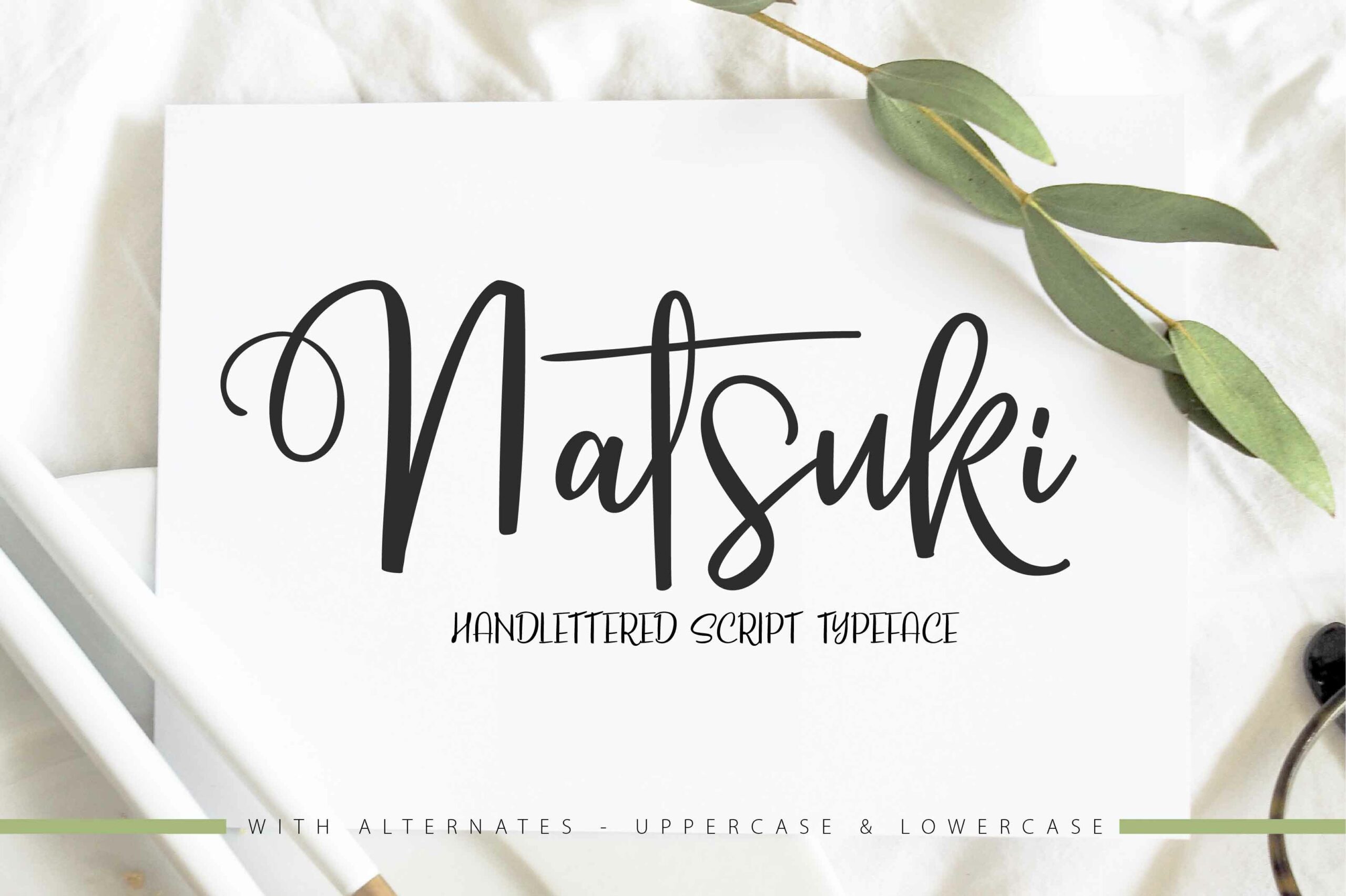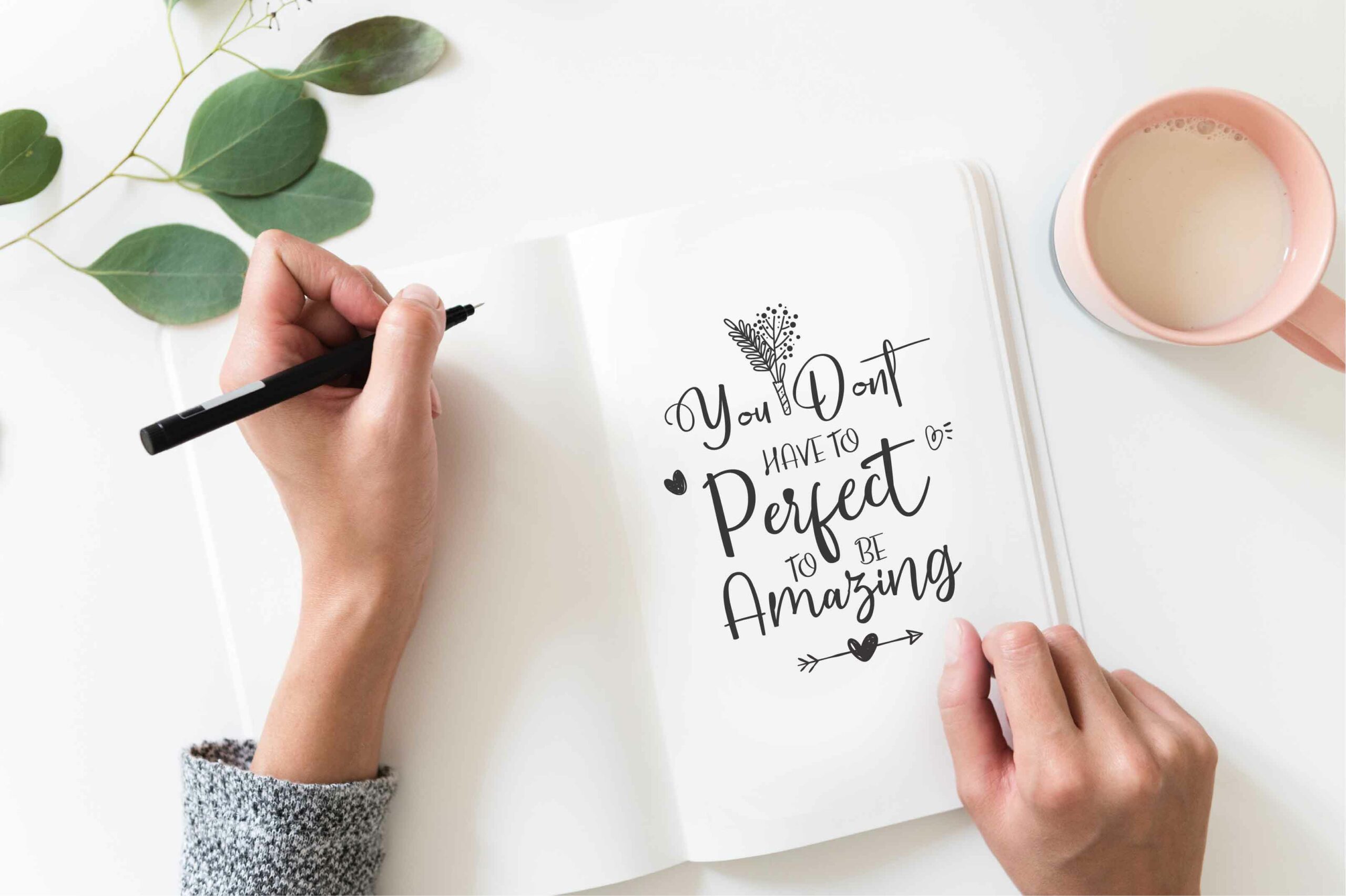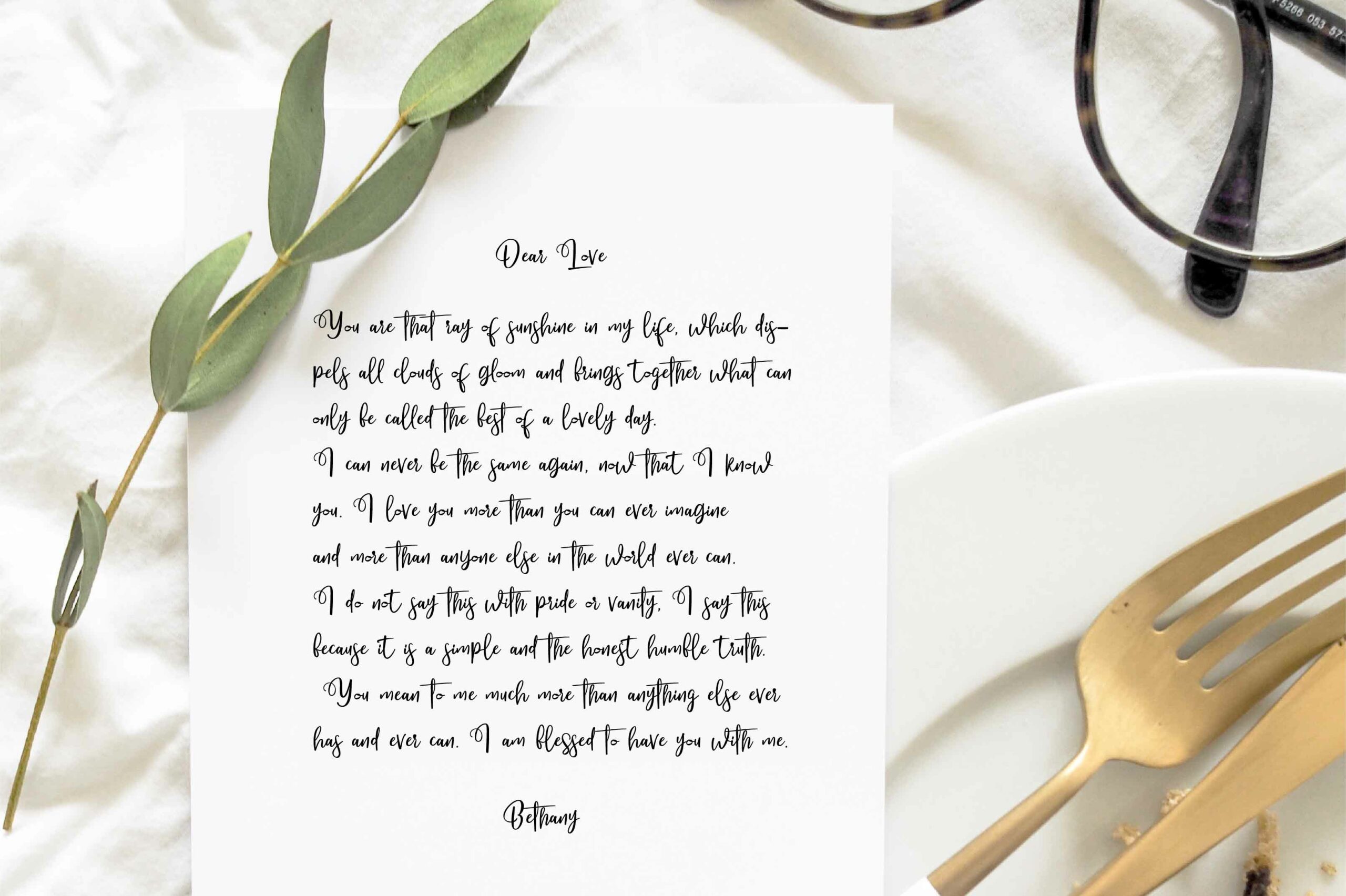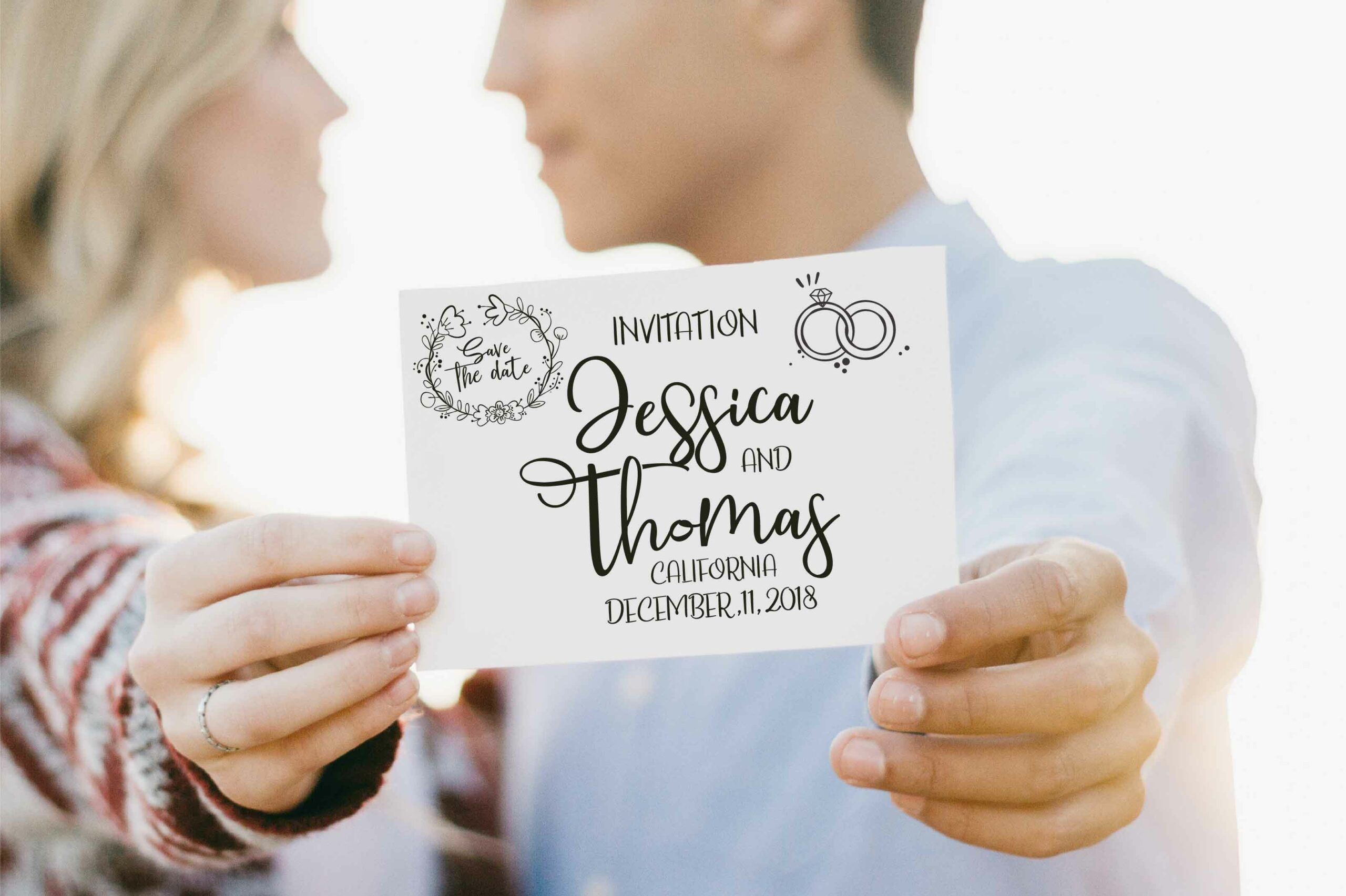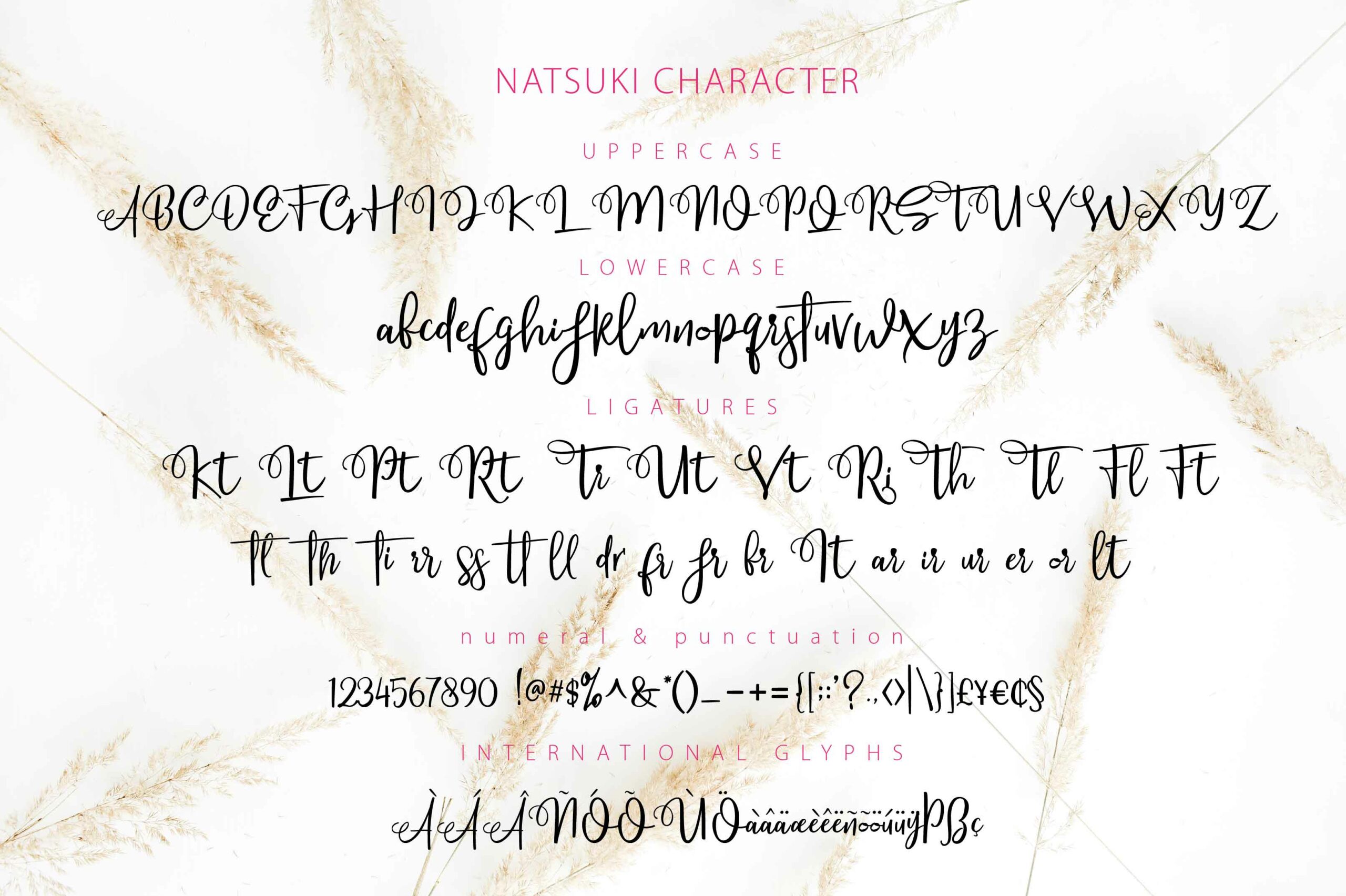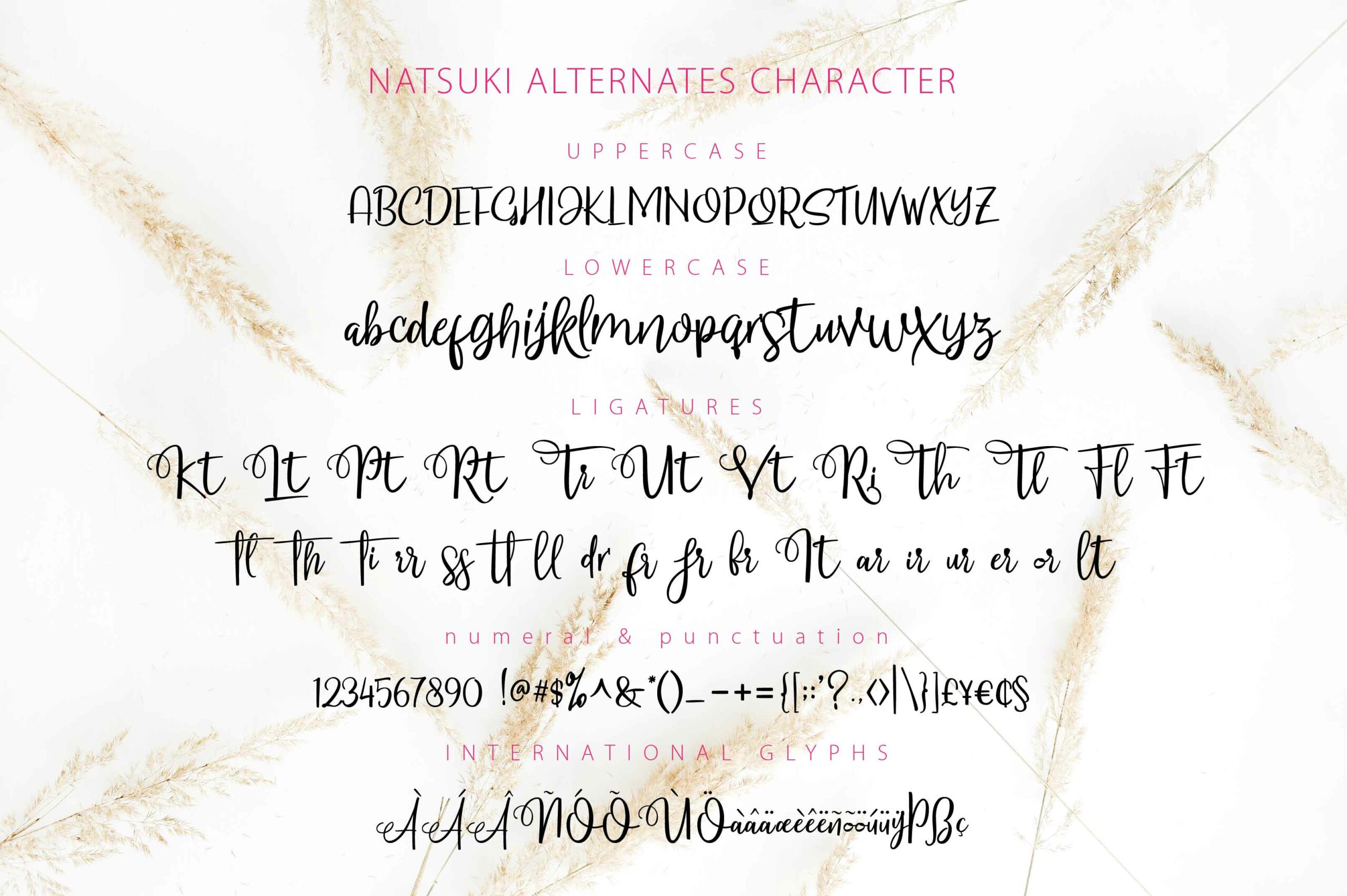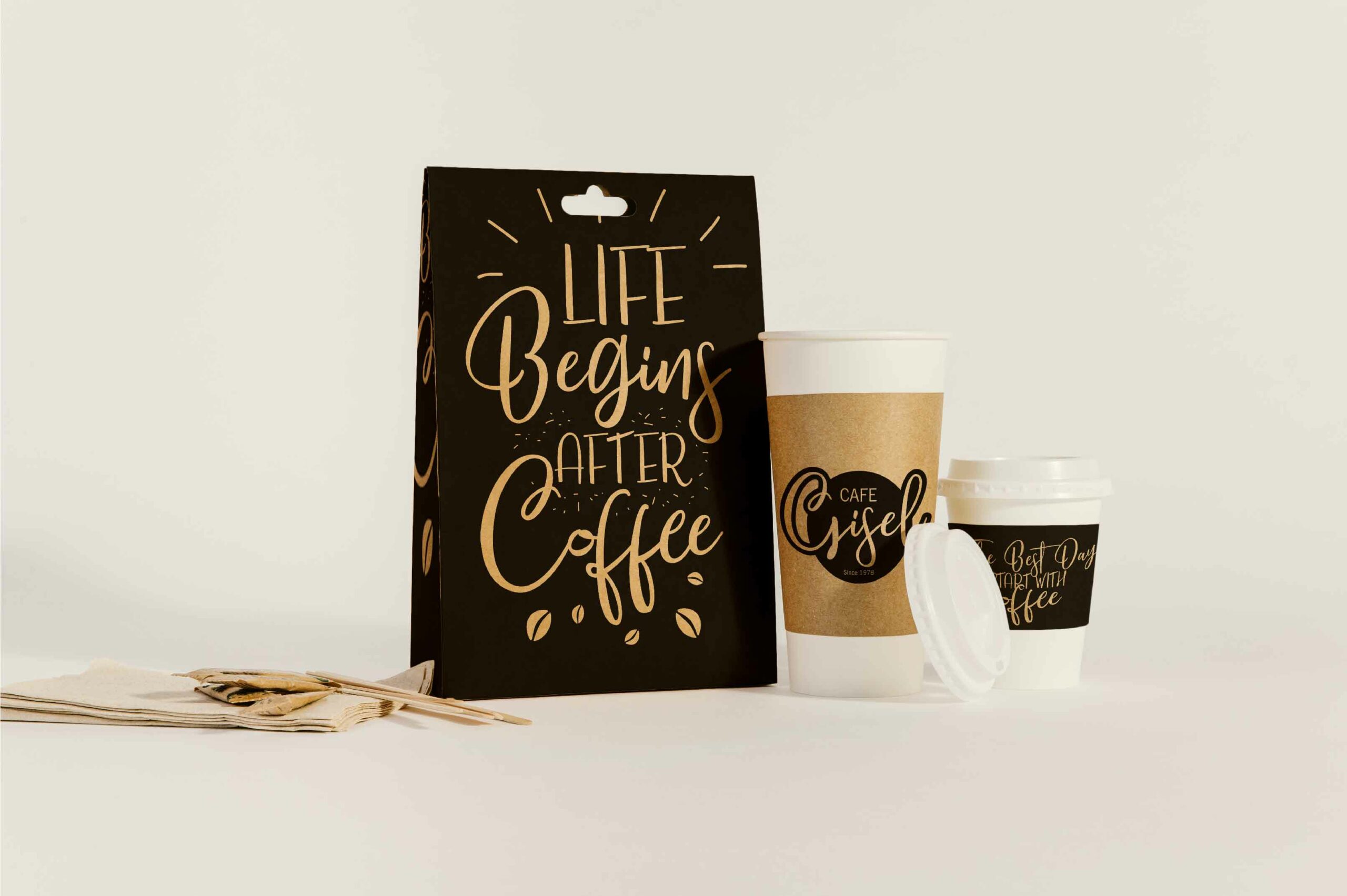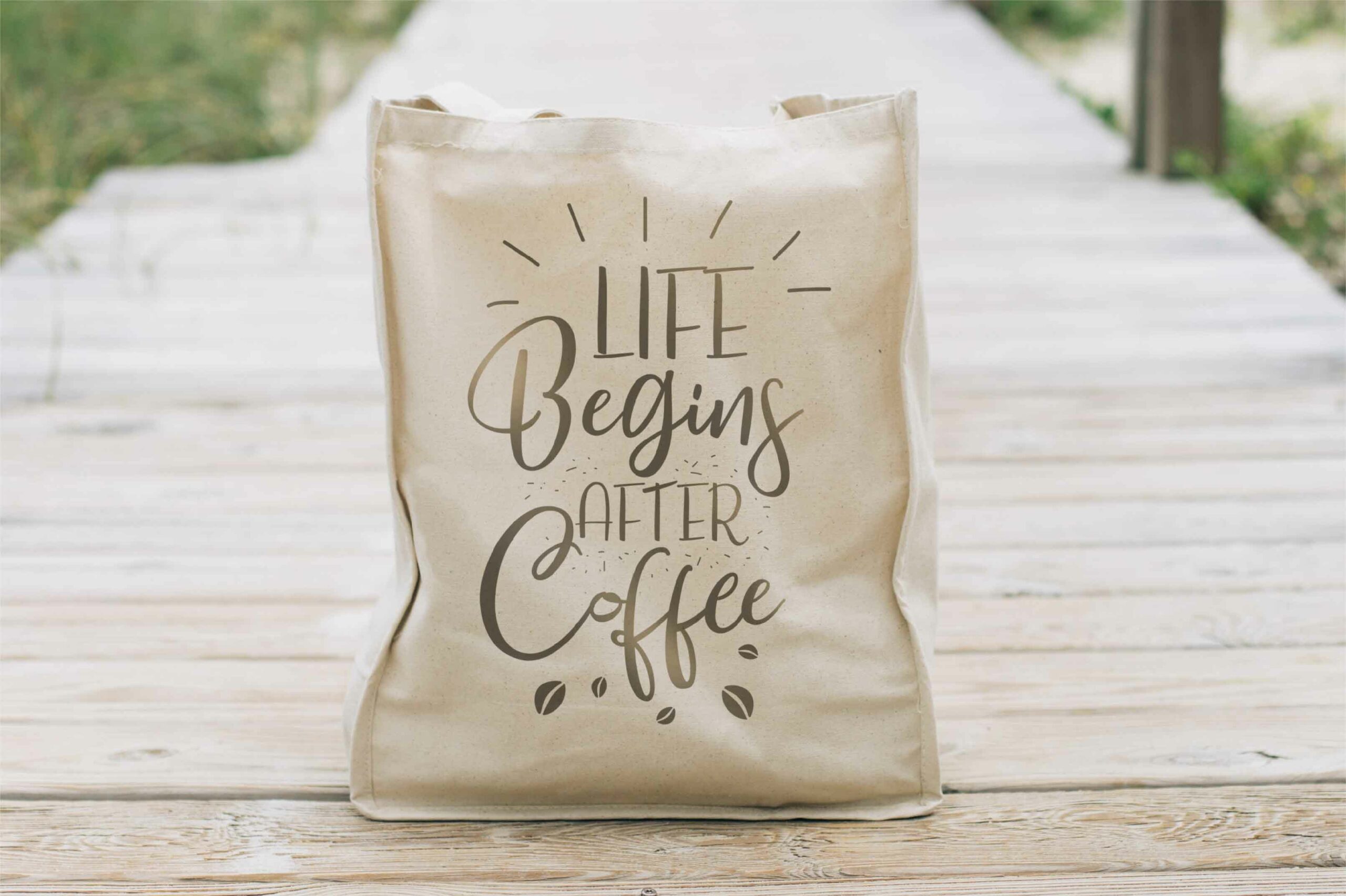
Natsuki Font
About Natsuki Font
Natsuki is a gorgeous and spiky calligraphy script font, perfect for special event designs and invitationals. This display script is ideal for use when you want to add a romantic and classic appeal without skimping on modern style and sensibility.